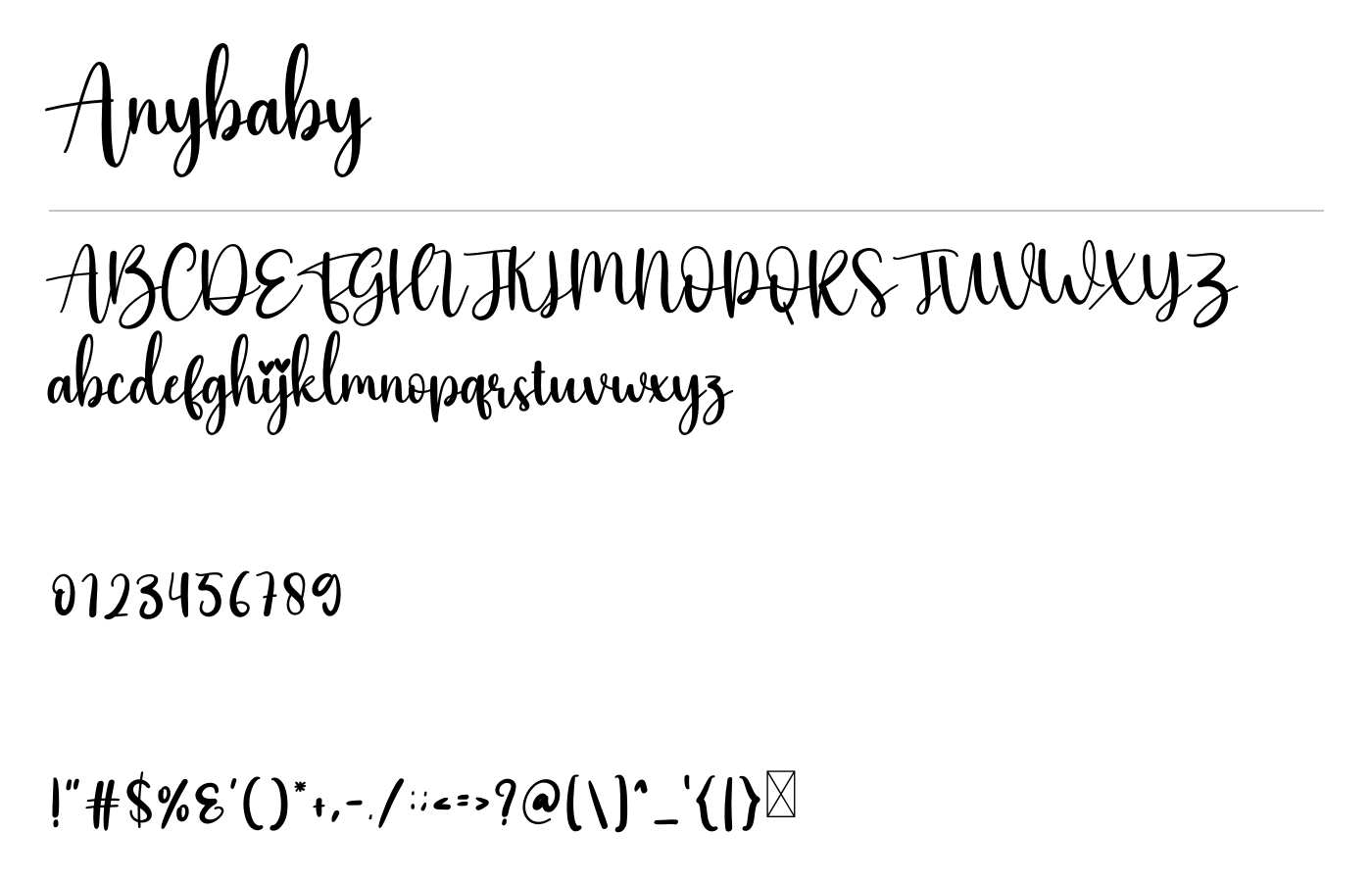
Anybaby is a playful and elegant script font with a hand-drawn, casual charm. Its smooth, flowing strokes and whimsical letterforms make it ideal for adding a personal, friendly touch to designs like invitations, branding, and social media graphics. This font works best in headlines and decorative uses where a warm, approachable feel is desired.